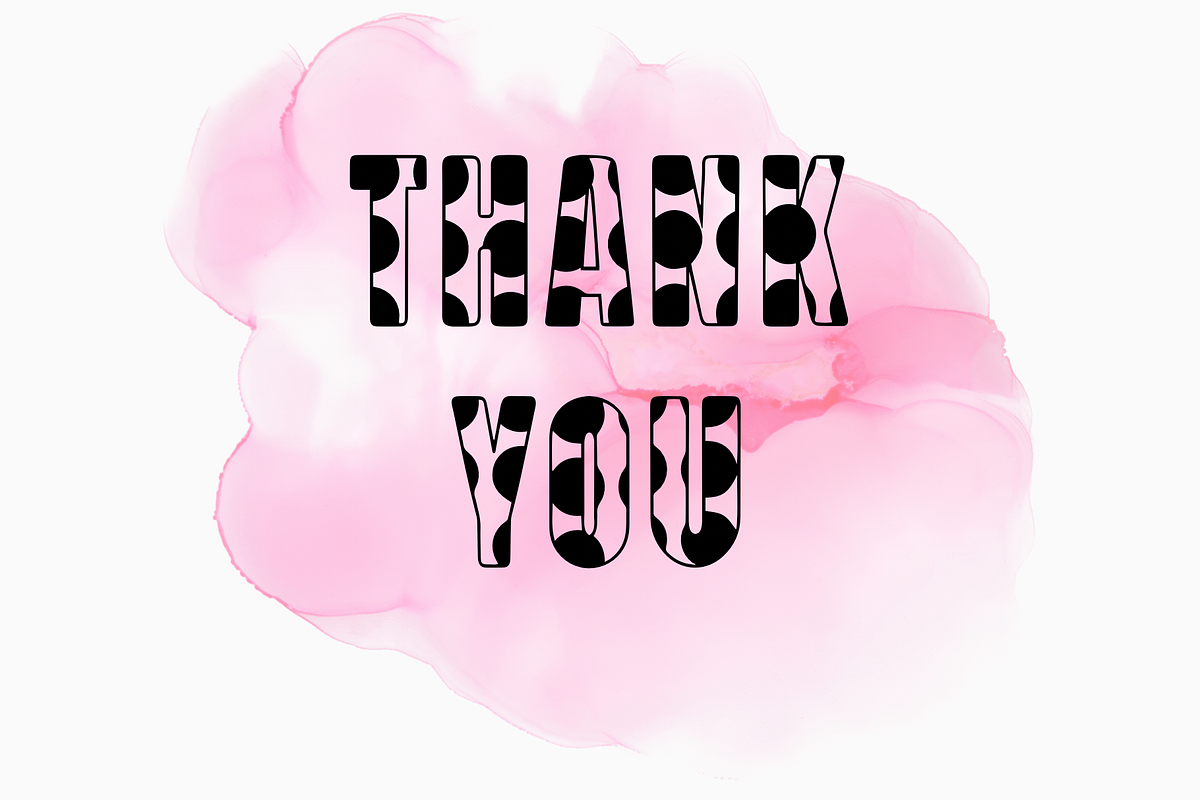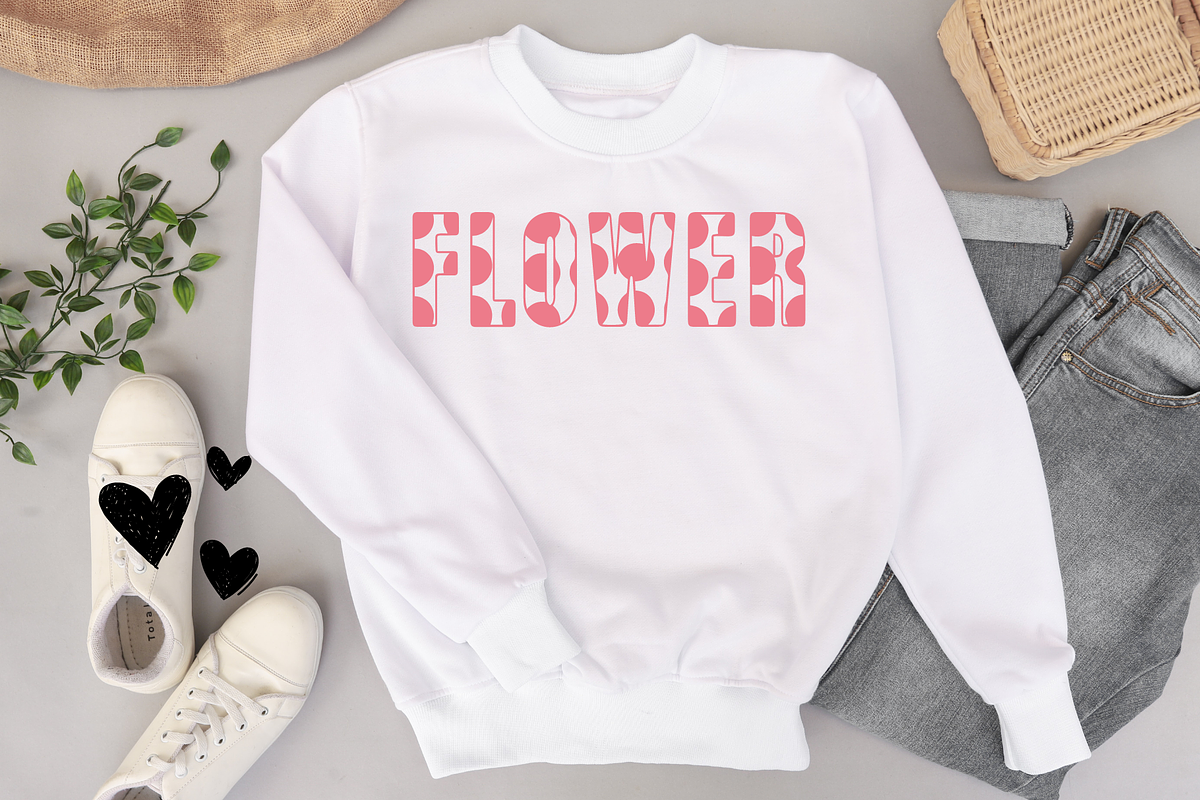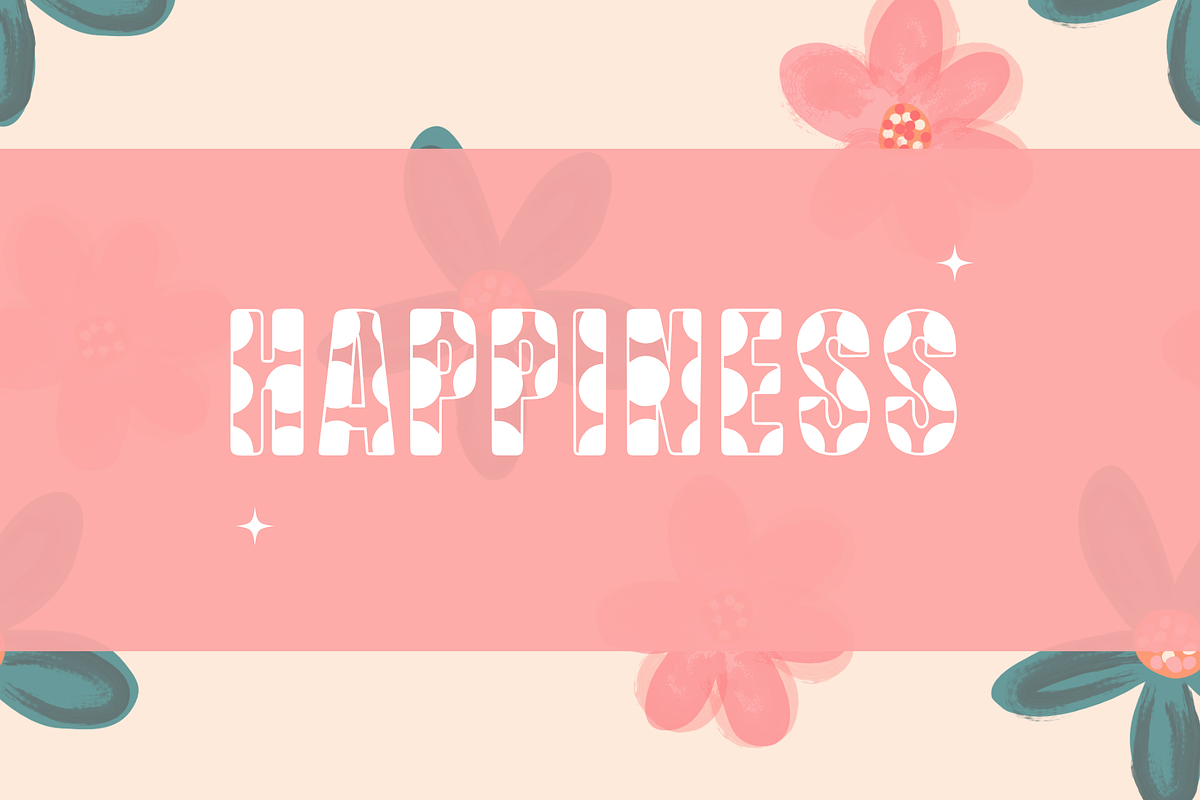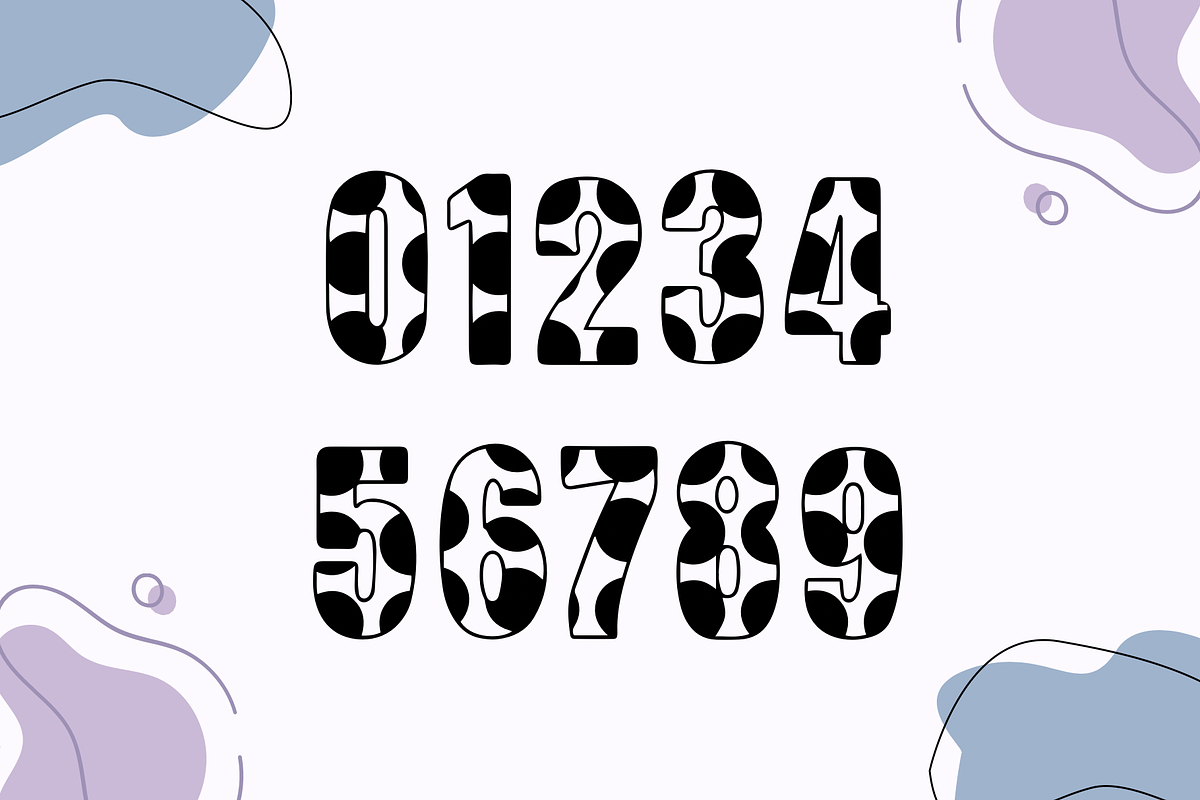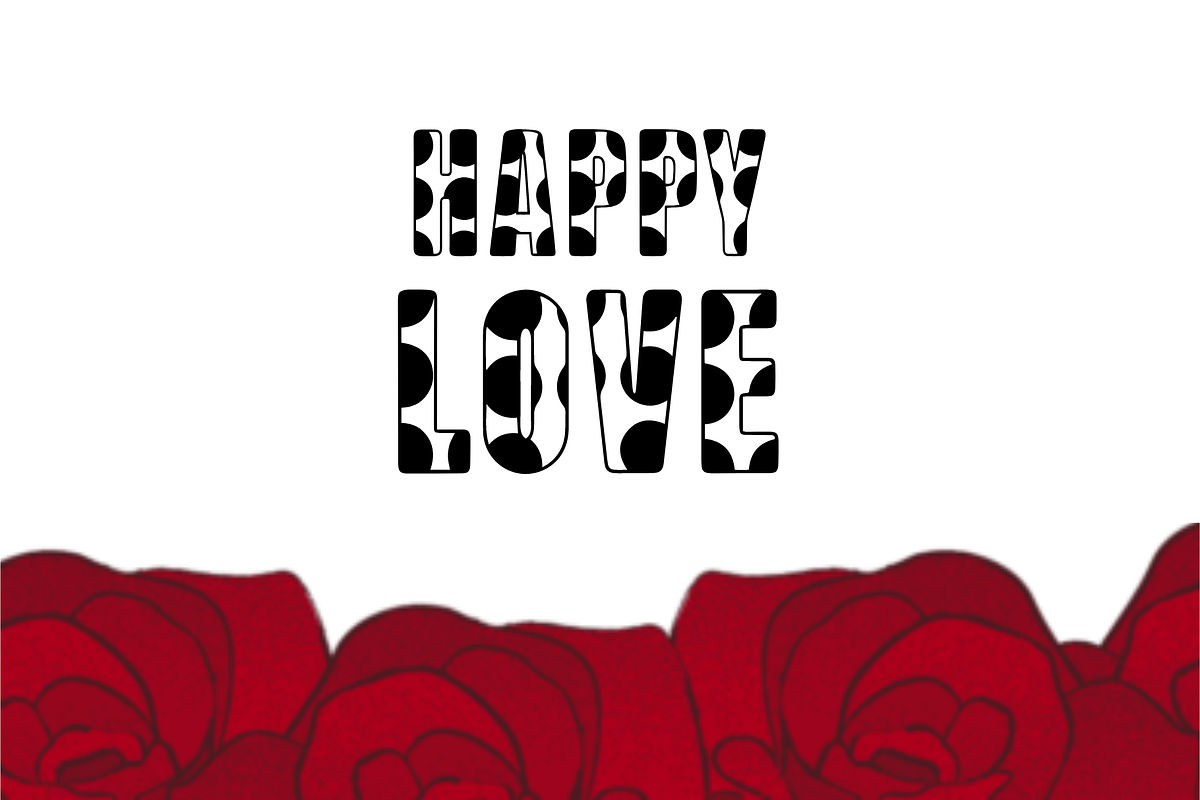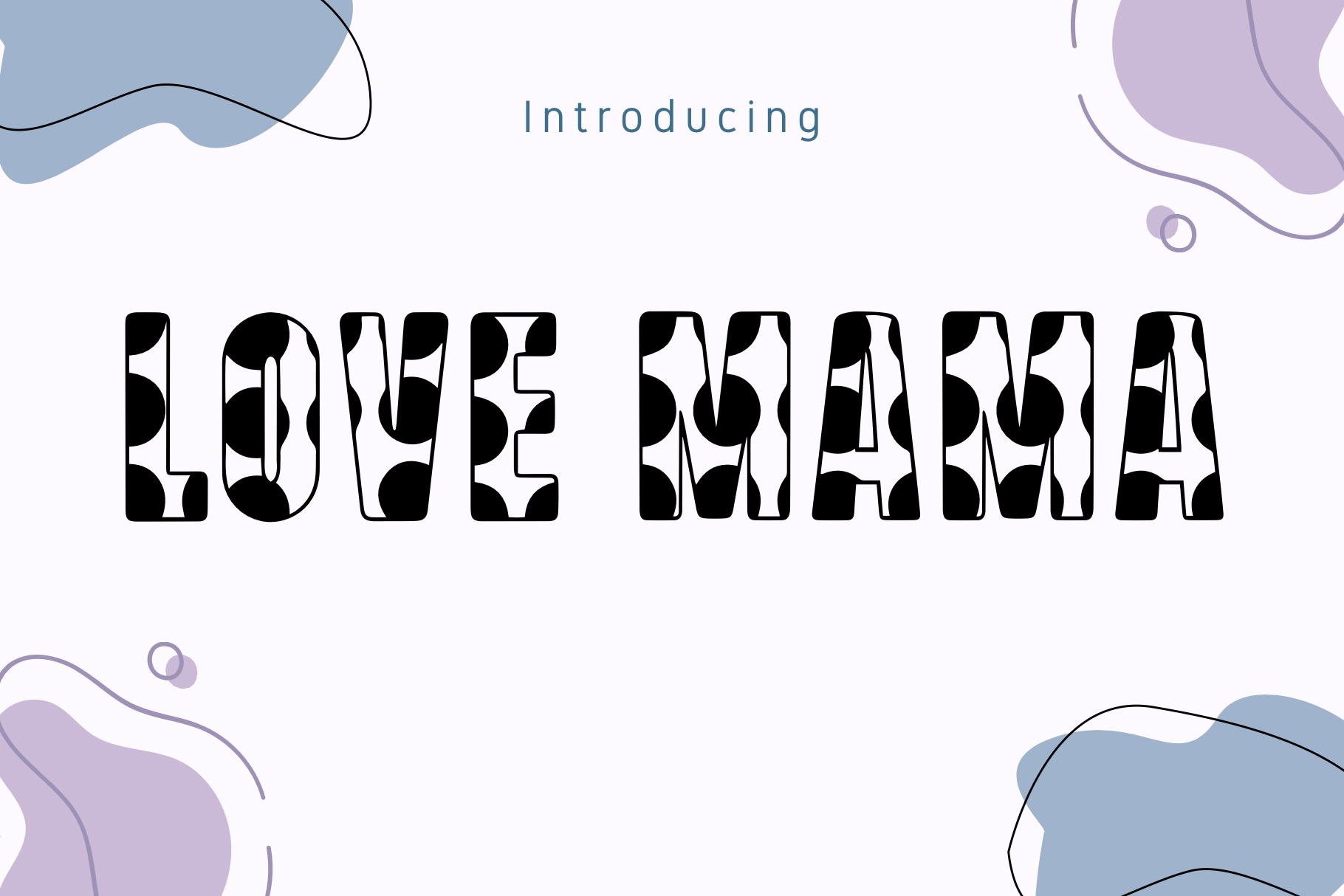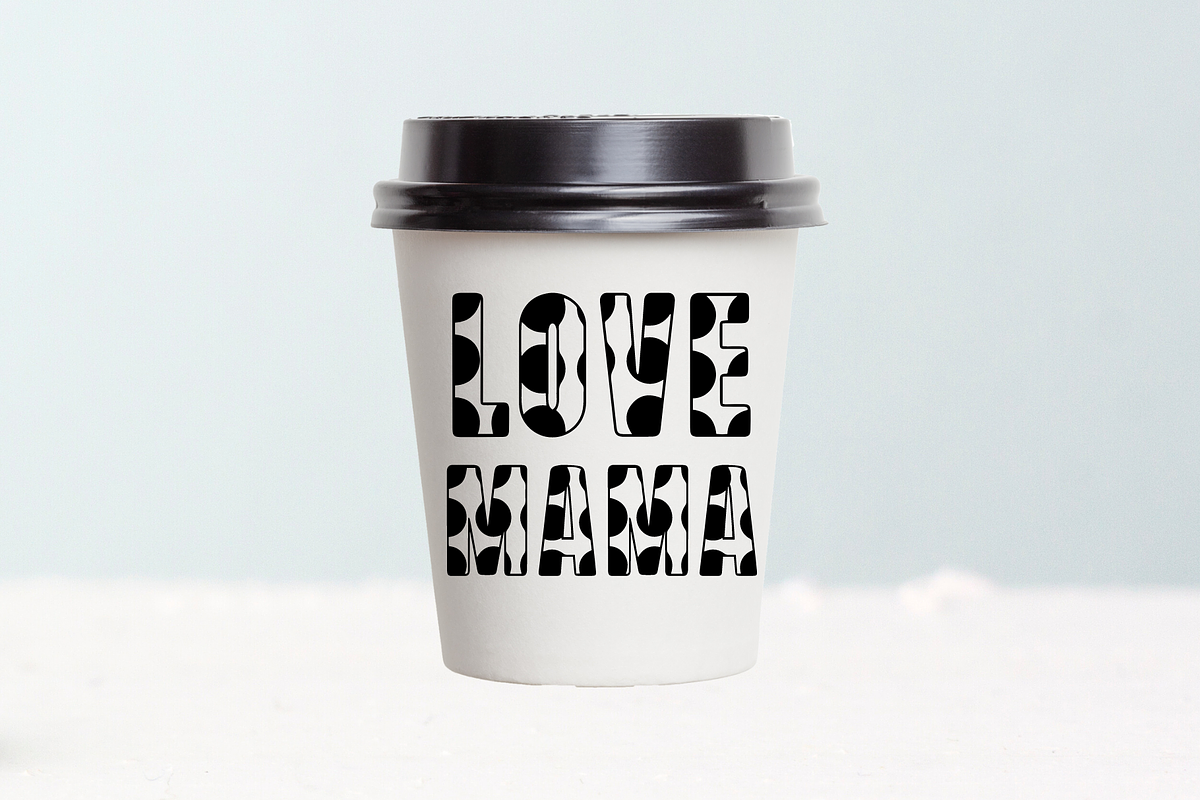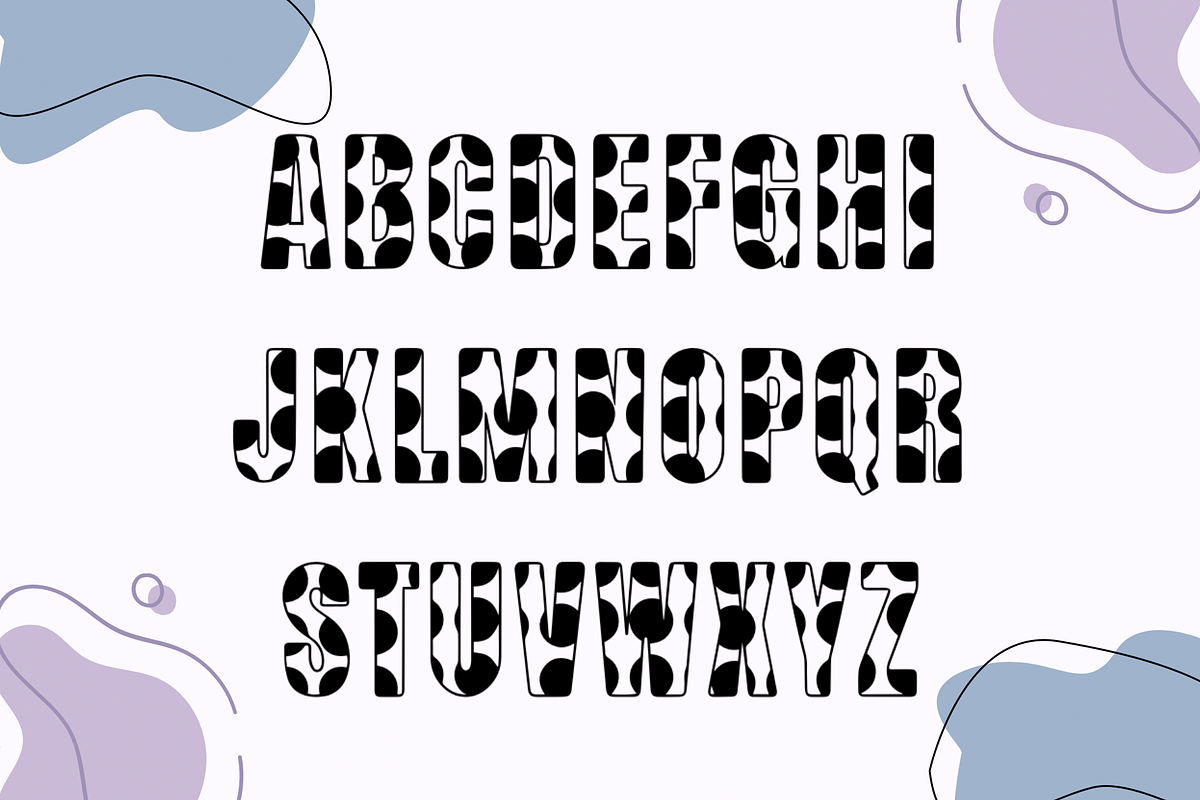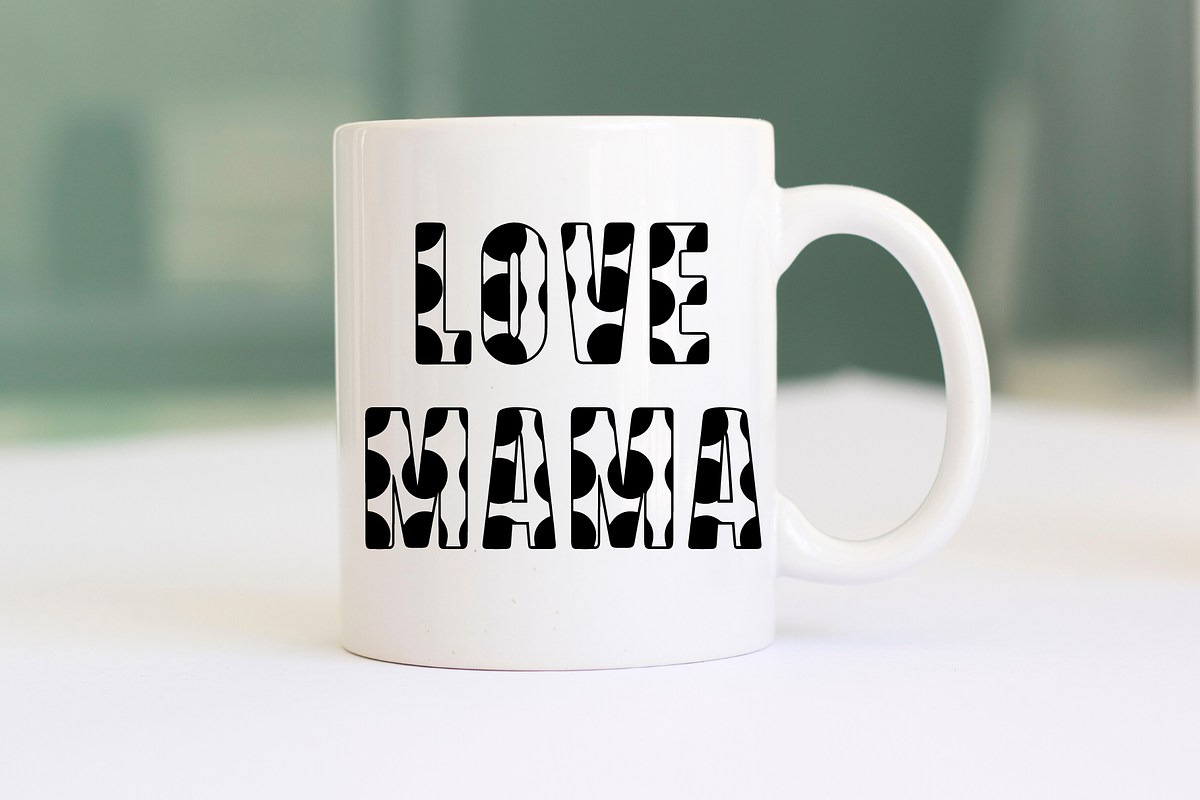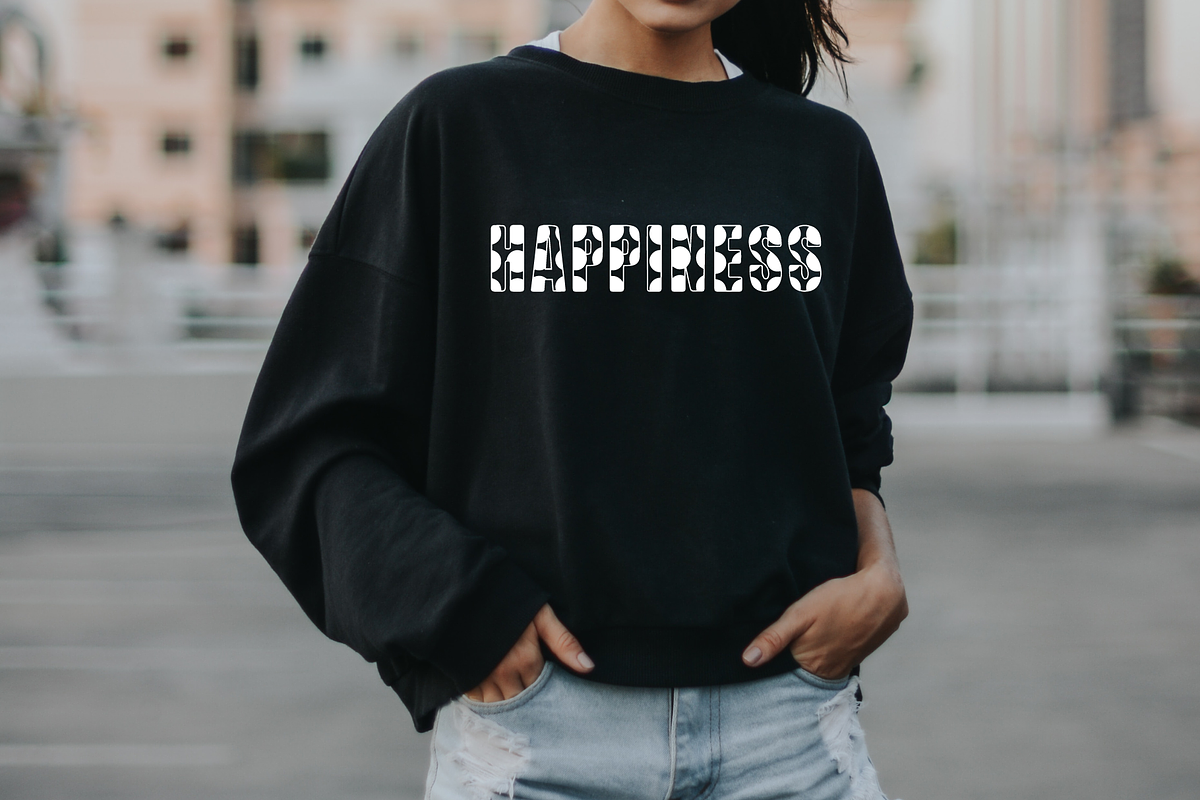
Love Mama Font
love mama is a fun and casual simple font. Whether you’re using it for crafts, digital design, presentations, or making greeting cards, this font has the potential to become your favorite go-to font, no matter the occasion!